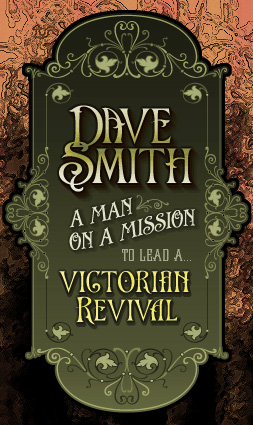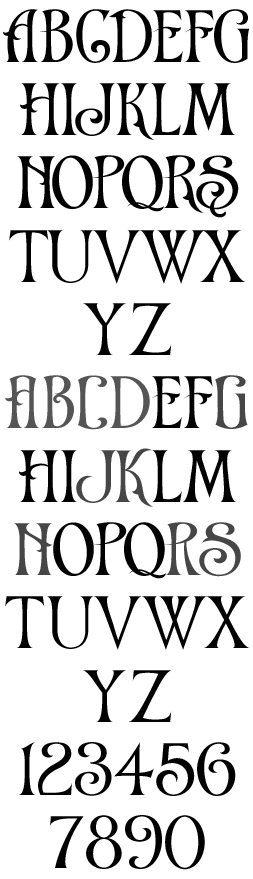
LHF Chapman Glass artisan Dave Smith brings us another victorian era classic. Many possibilities can be achieved by mixing caps with small caps and altering the sizes.